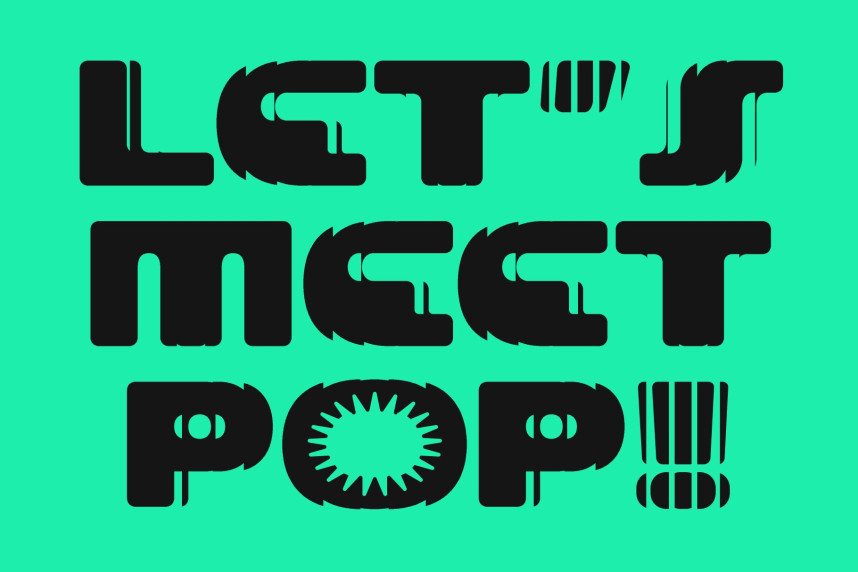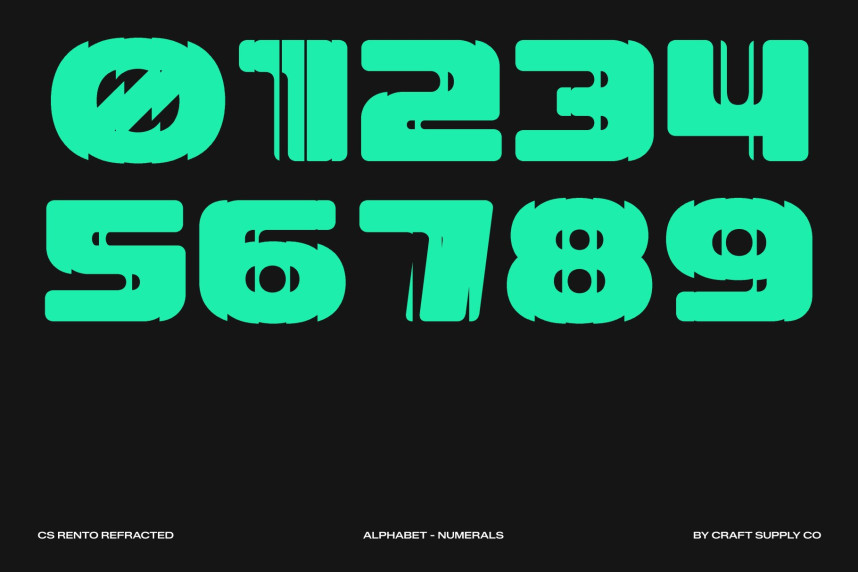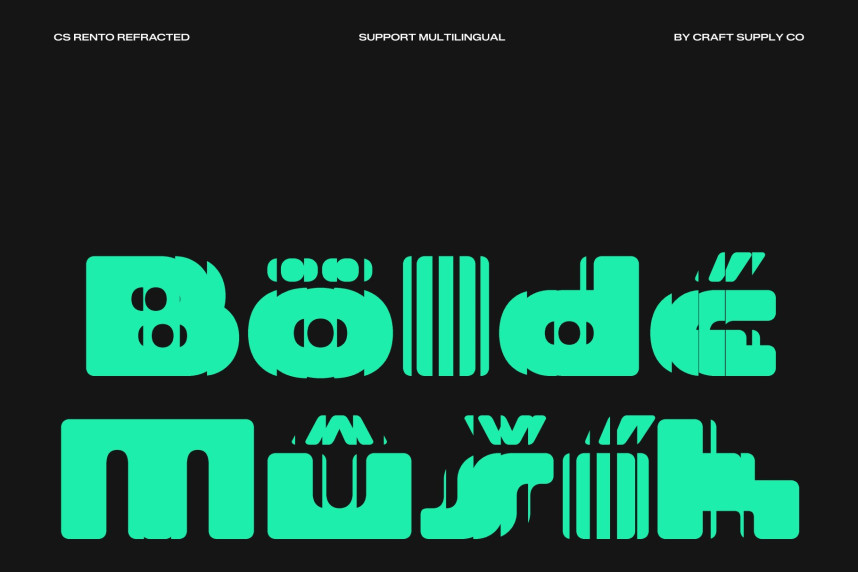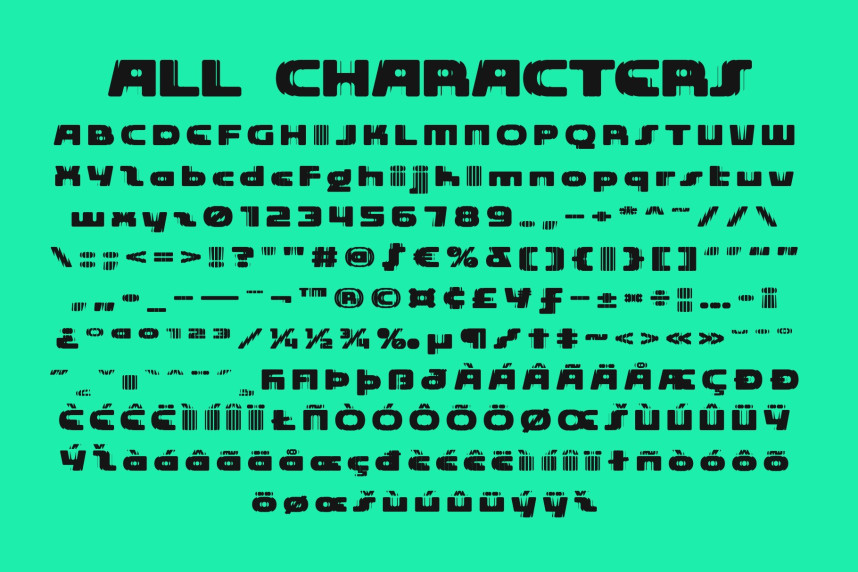
CS Rento Refracted Font – Bold Display Font: Futuristic Calm with Geometric Distortion
Strong Geometry Balanced with Soft Visual Warmth
This is a bold display font built from solid geometric forms combined with smooth and approachable curves. Its confident structure creates a powerful visual presence, while the softened details introduce a calm and friendly atmosphere. This balance allows the typeface to feel bold without becoming harsh, making it highly effective for modern visual communication that values both impact and accessibility.